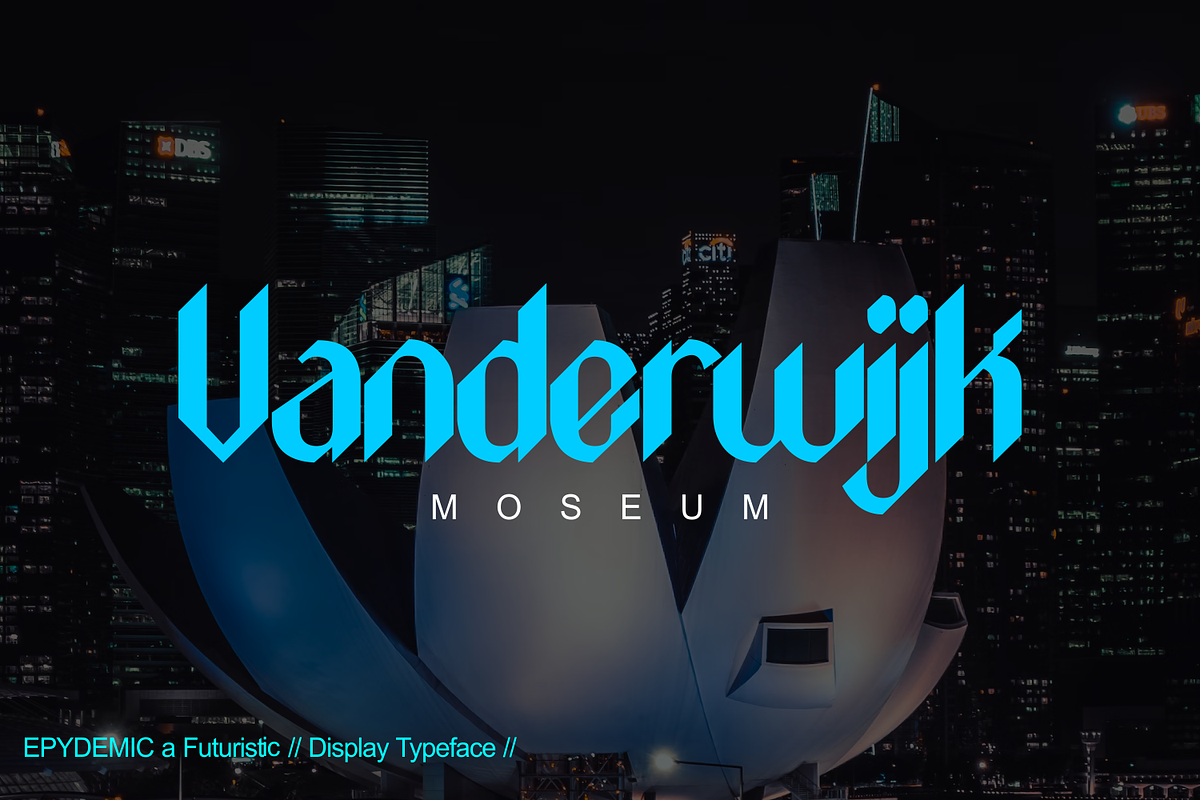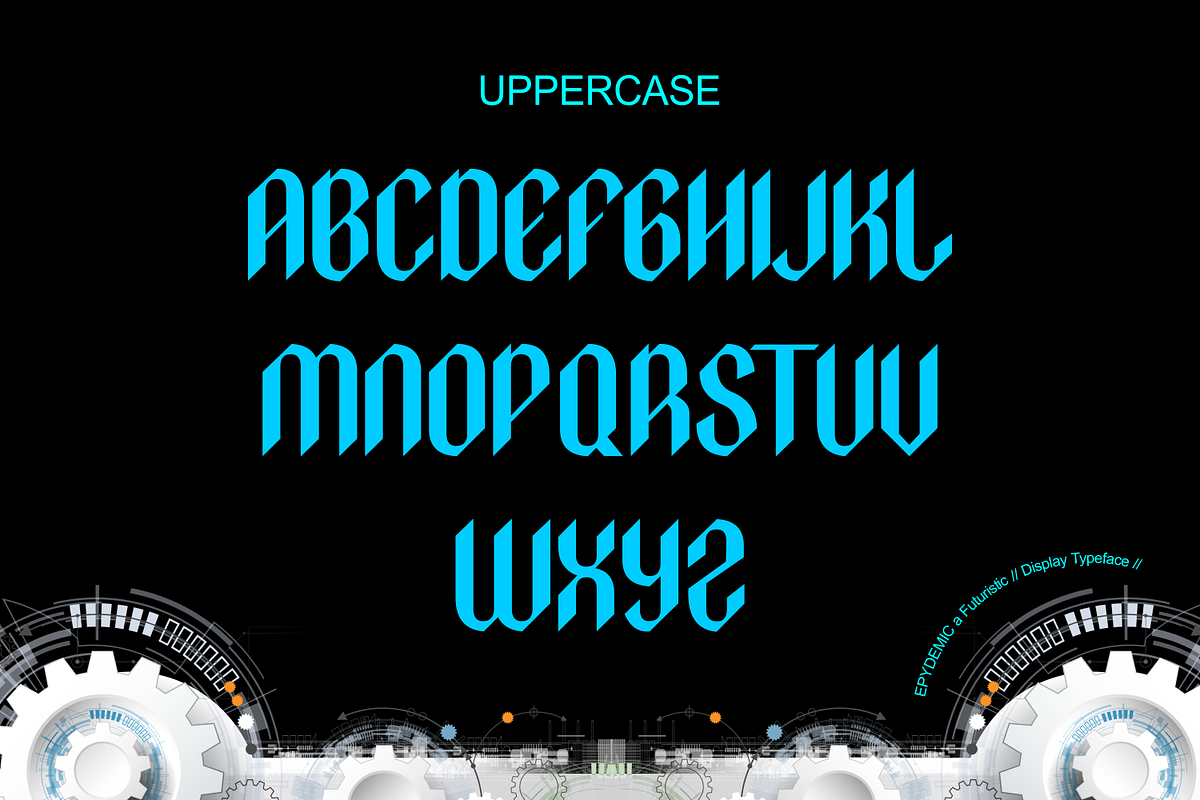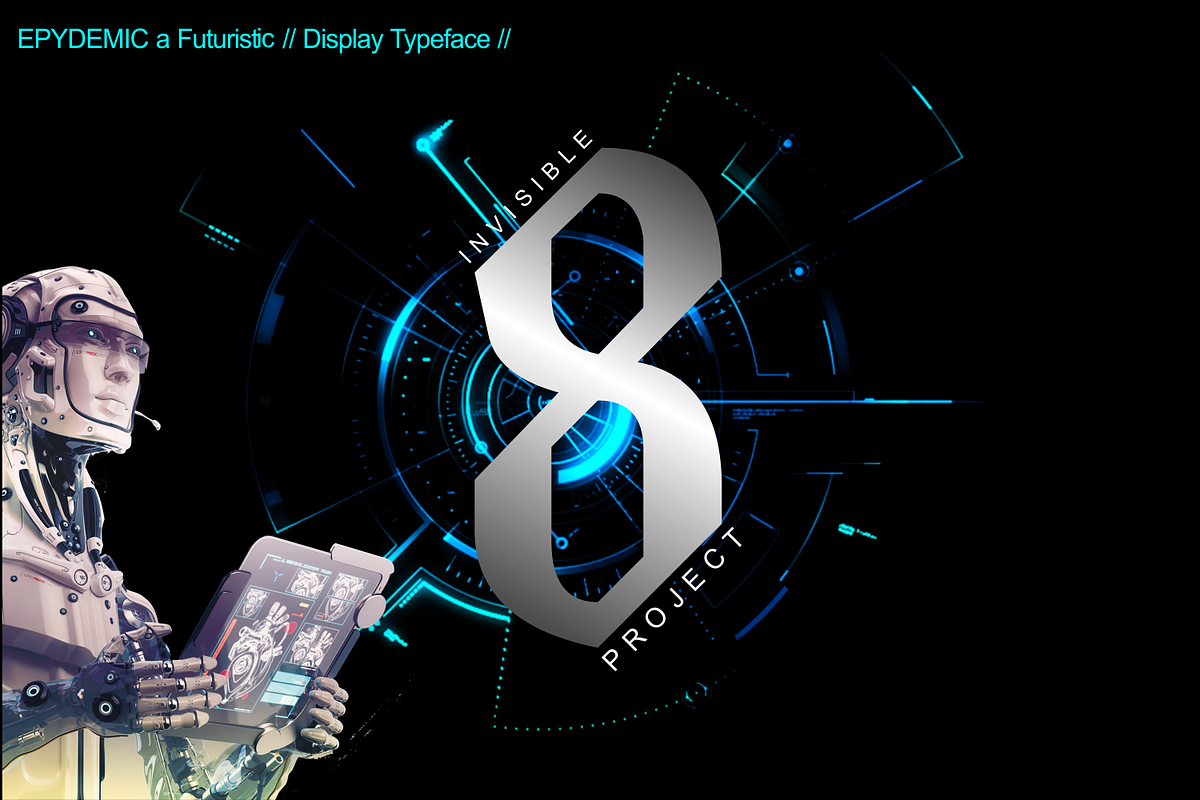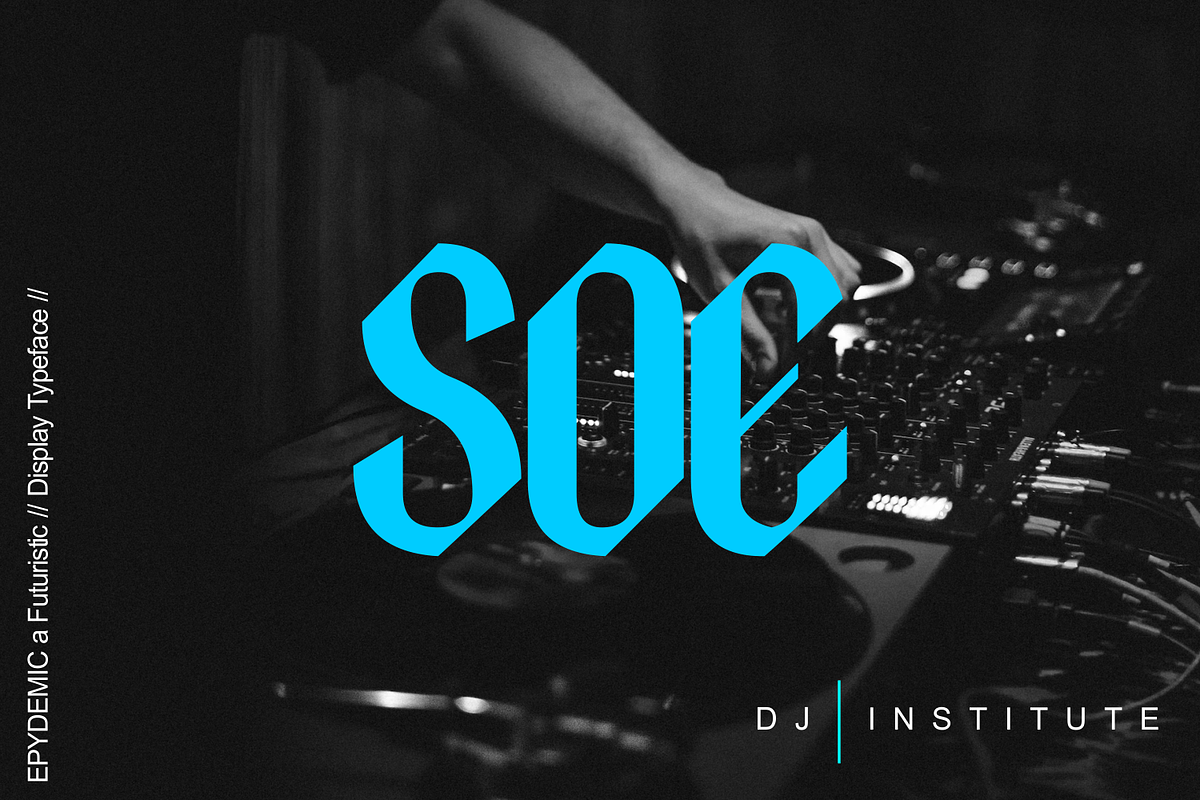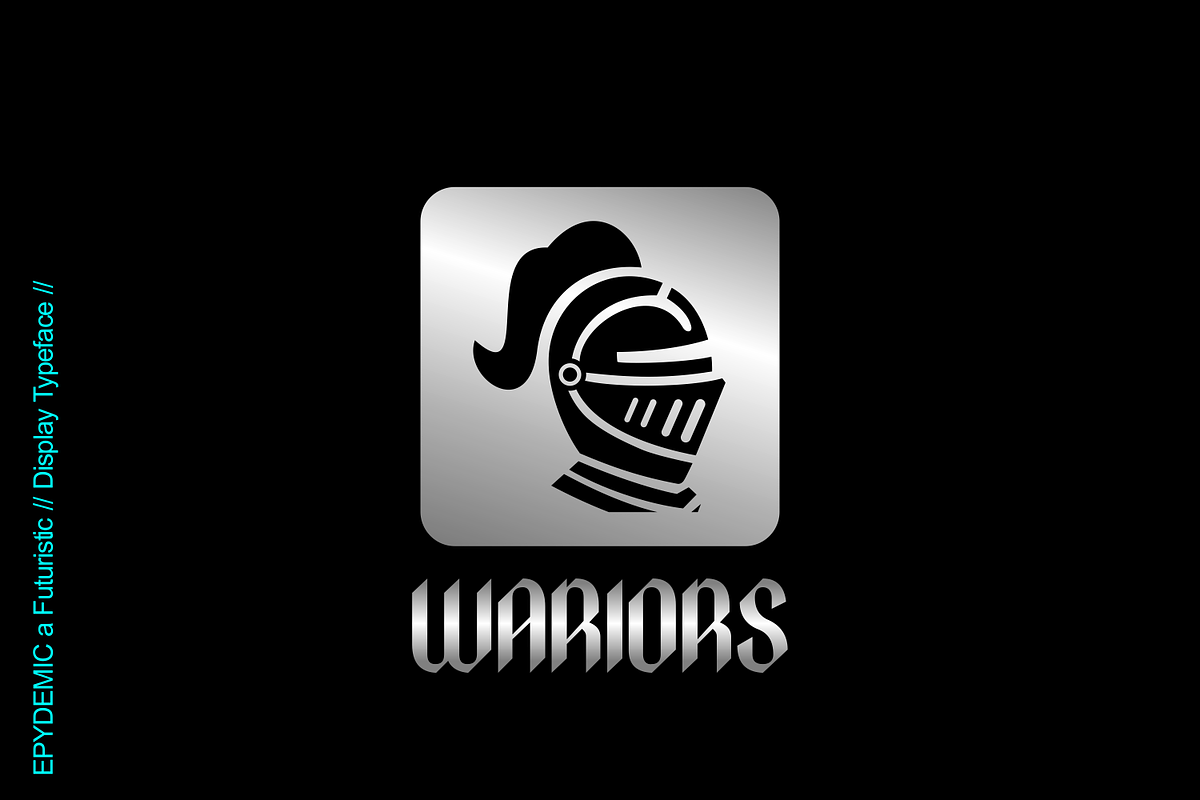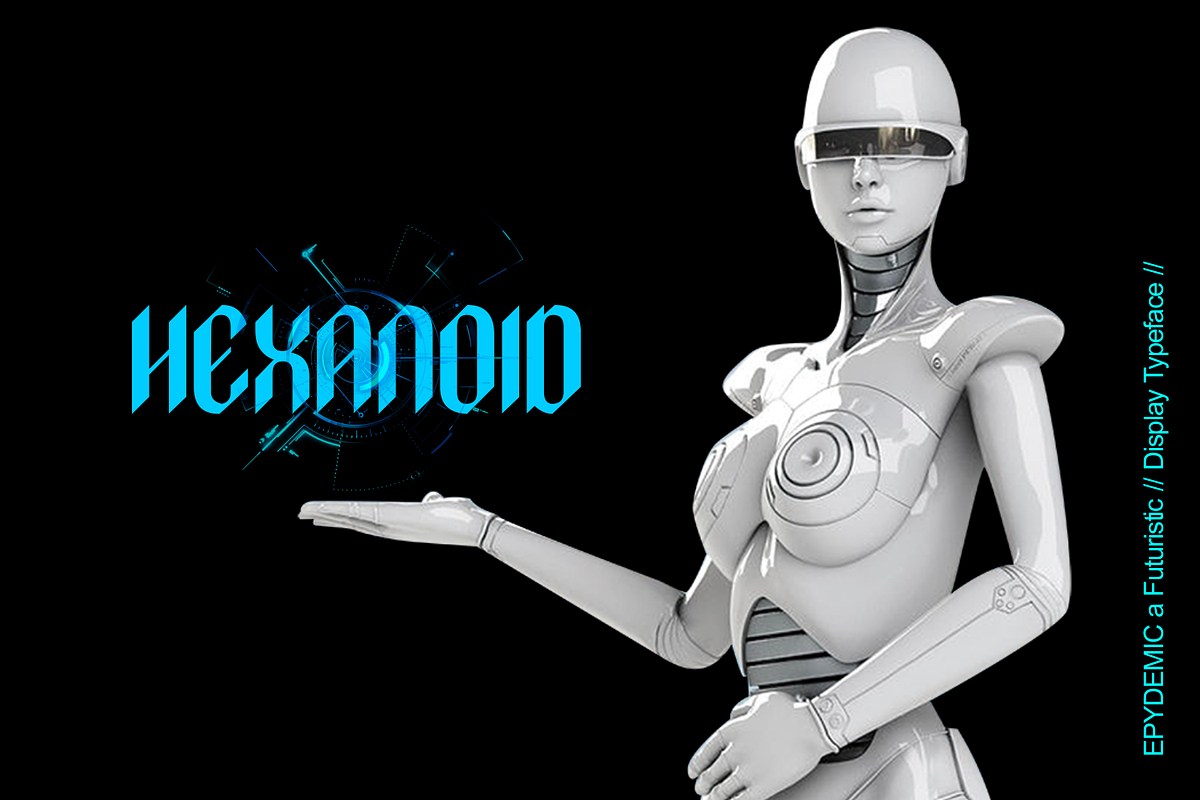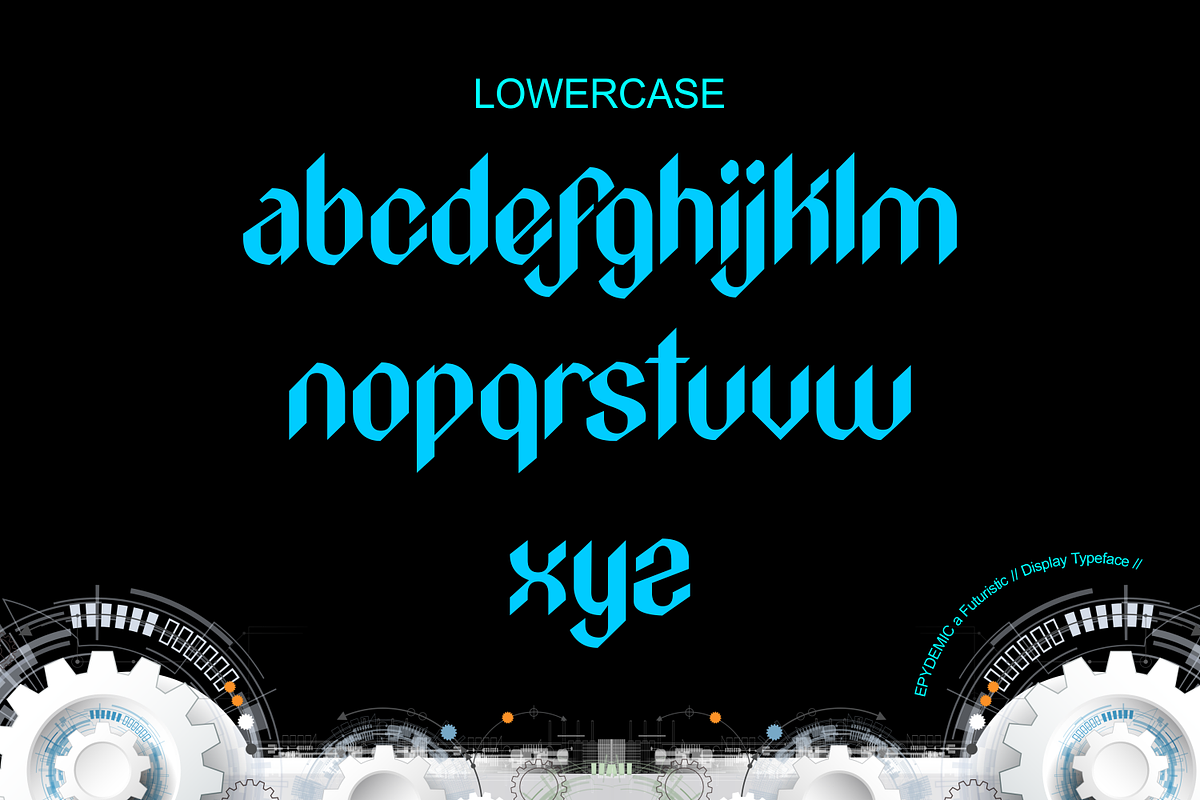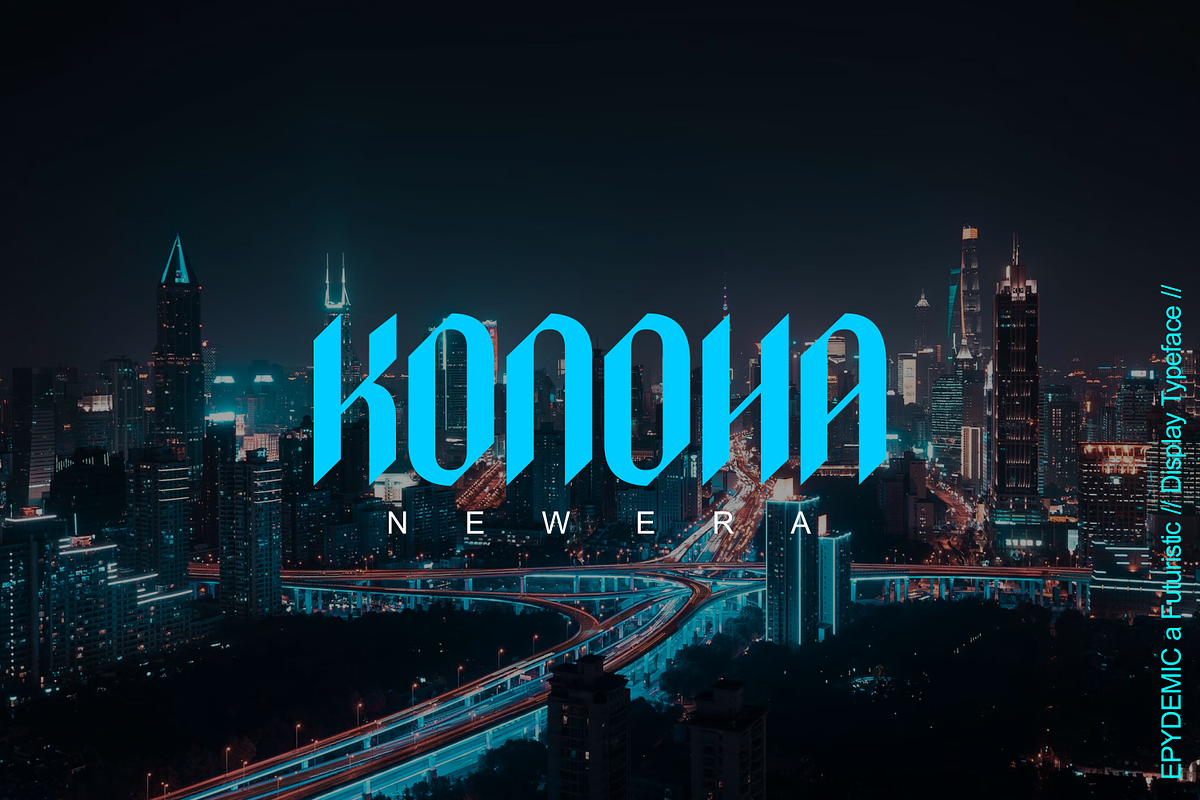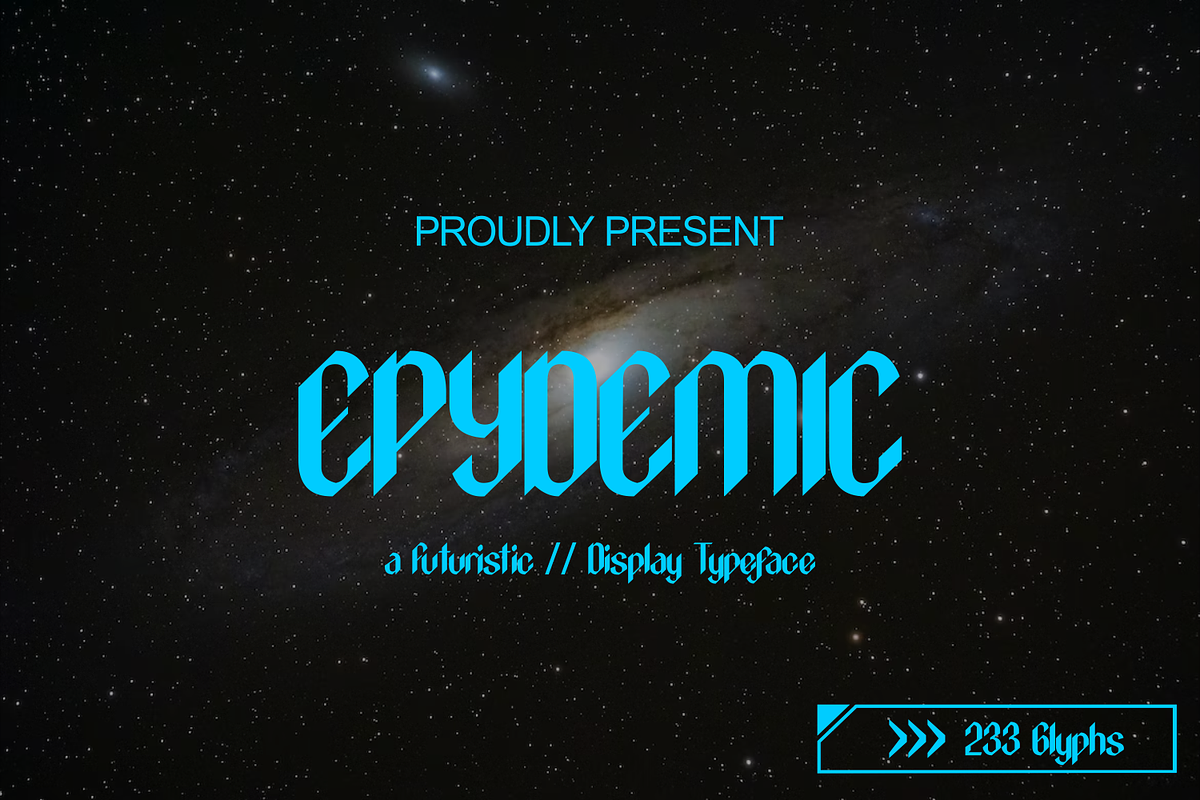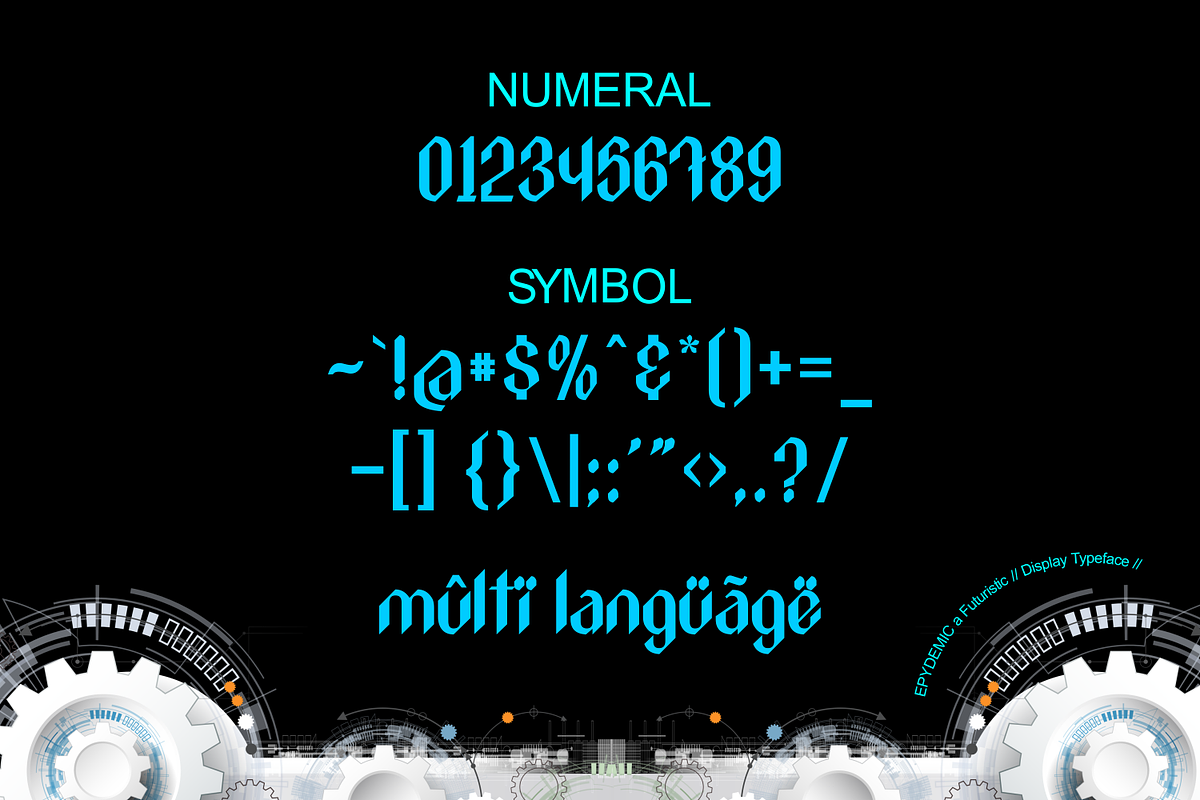
Epydemic
EPYDEMIC is a futuristic style font with a unique style and touch, inspired by the Modern theme while maintaining simplicity and unique shapes. Great to use in your projects related to games, future technology, space travel, virtual reality & more!